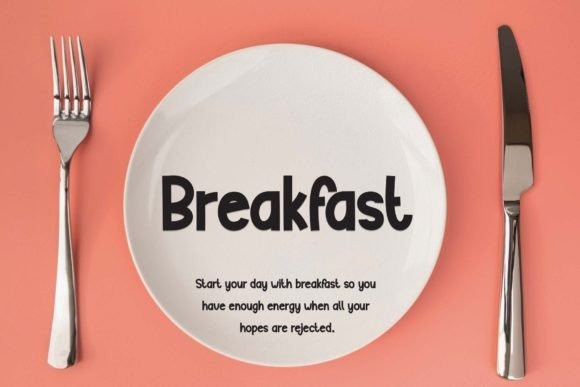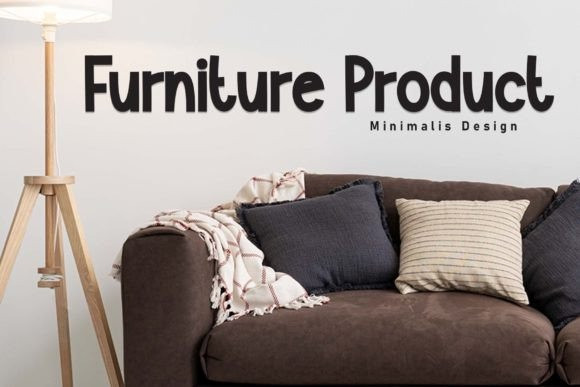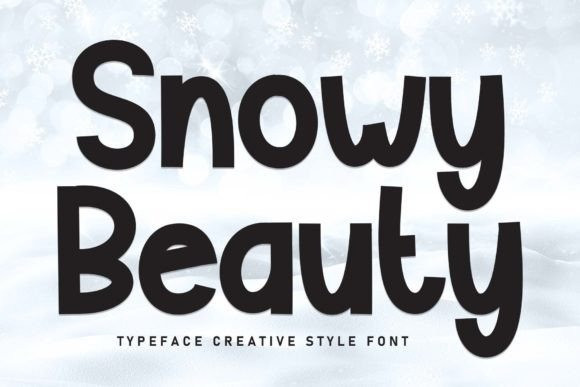
Snowy Beauty Font
Snowy Beauty Font is a sweet and friendly handwritten font. Cute and versatile, this font is ideal for writing wedding invitations, cards, or any other design that might need a fun touch!